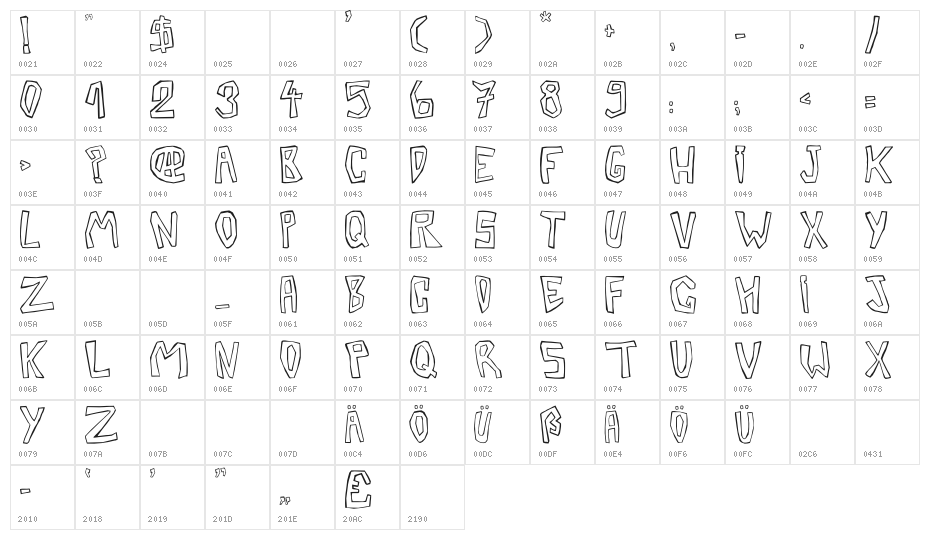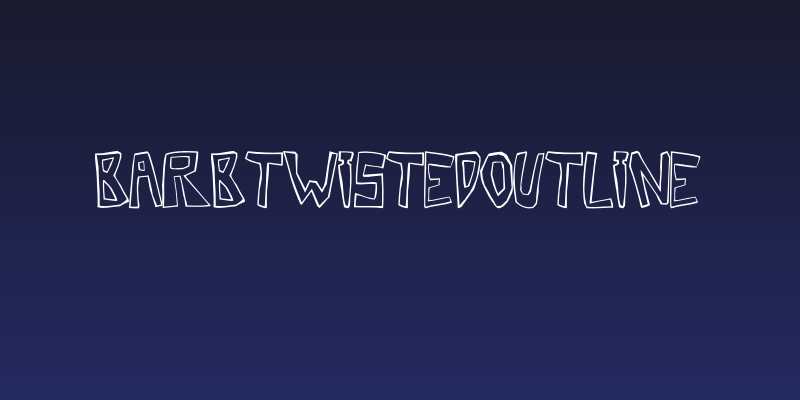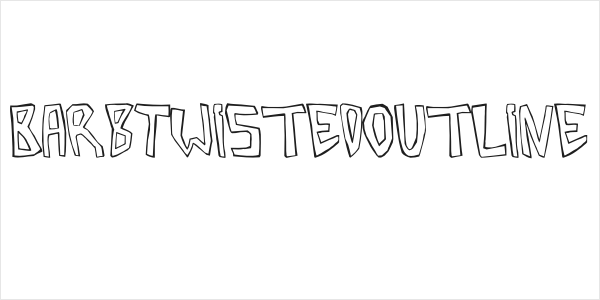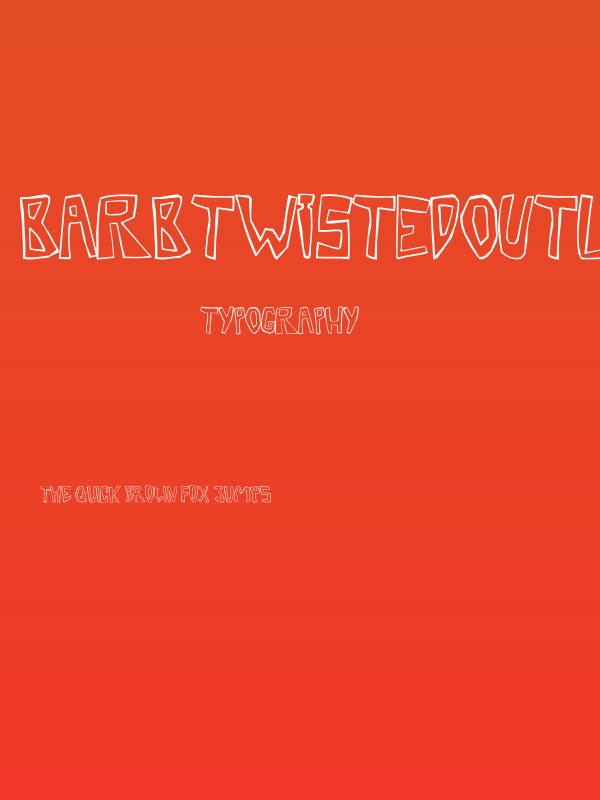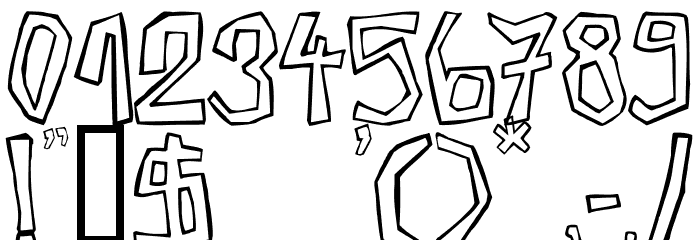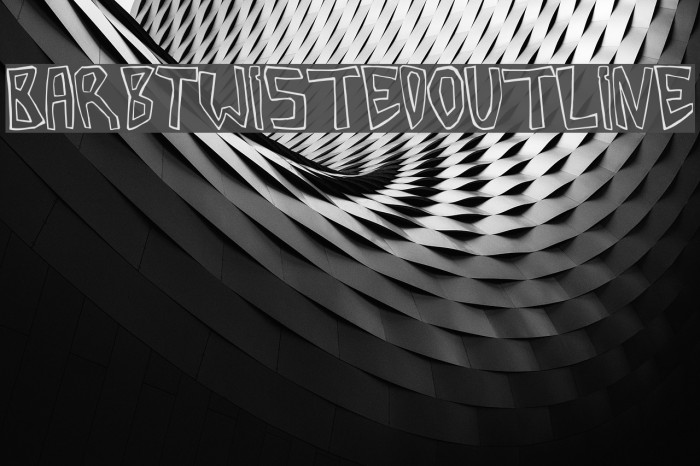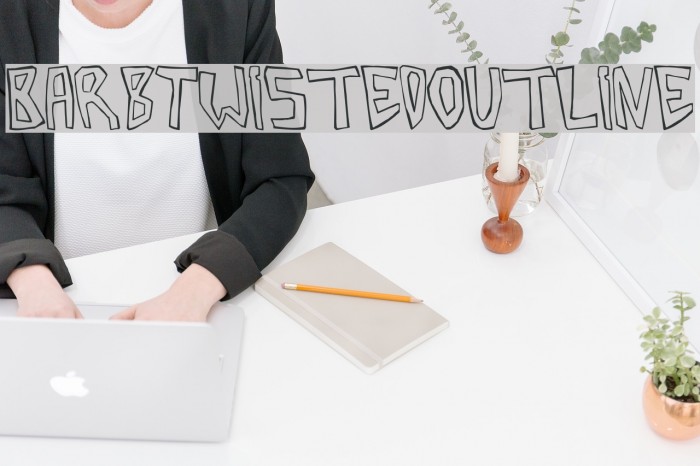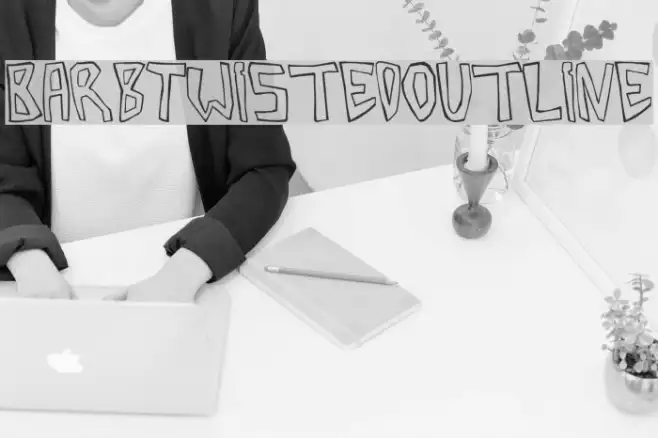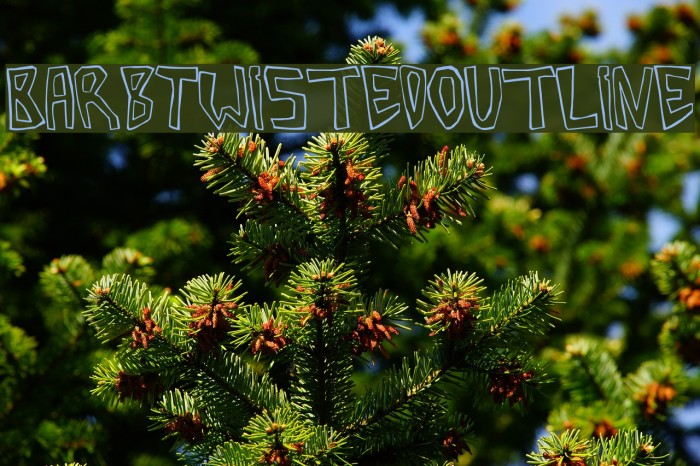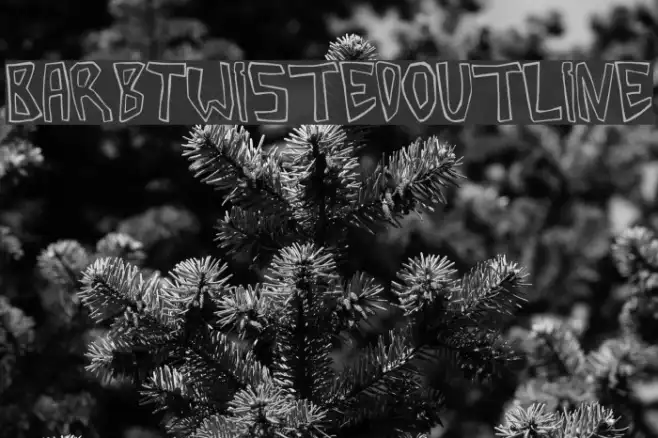
BarbTwistedOutline Font
BarbTwistedOutline Description
This font features a unique, twisted outline style that gives each character a dynamic and edgy appearance. The letters are bold and angular, with a hand-drawn quality that adds a sense of movement and energy. The uppercase and lowercase letters maintain a consistent style, with the uppercase being slightly more pronounced. Numbers and special characters follow the same twisted outline design, ensuring a cohesive look across all elements. The font's playful and unconventional style makes it stand out, perfect for projects that require a bold, artistic touch.
| Proposed Projects | Ideal for posters, album covers, graffiti art, and creative branding projects. |